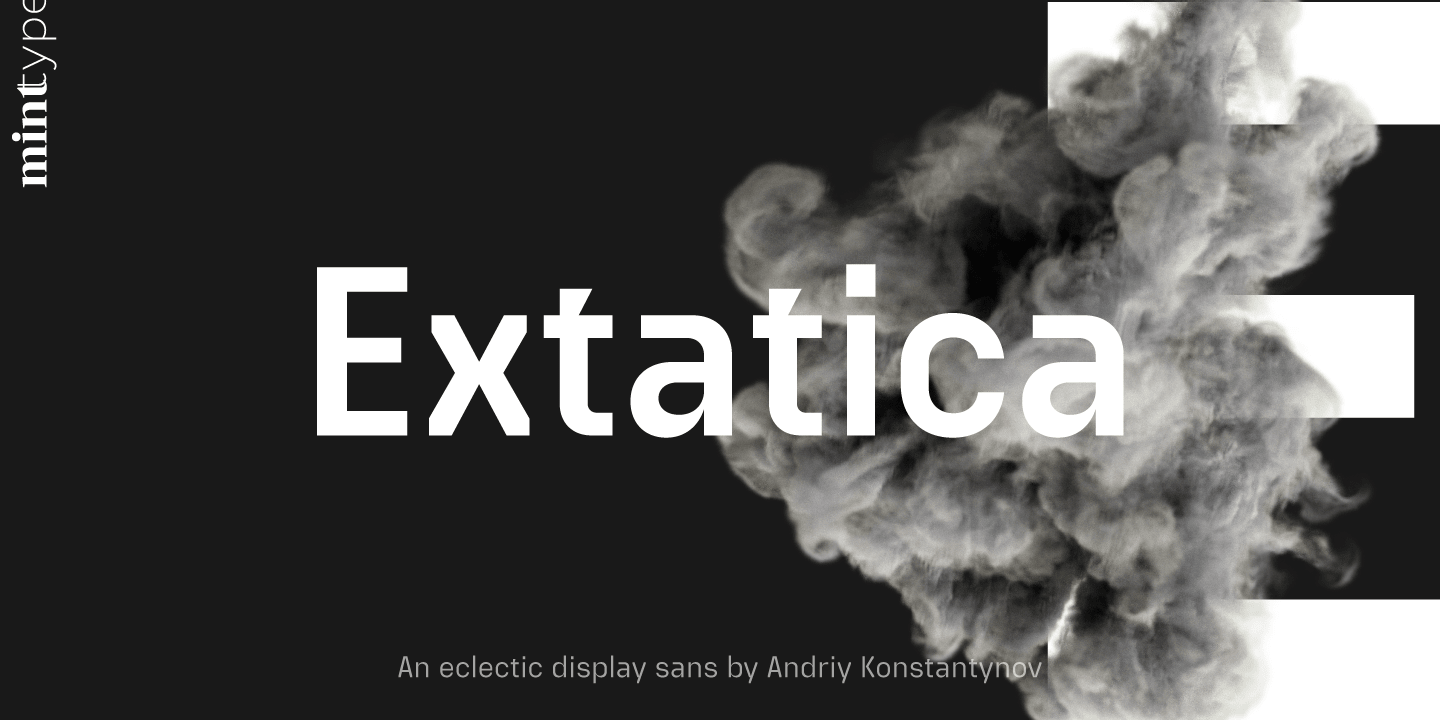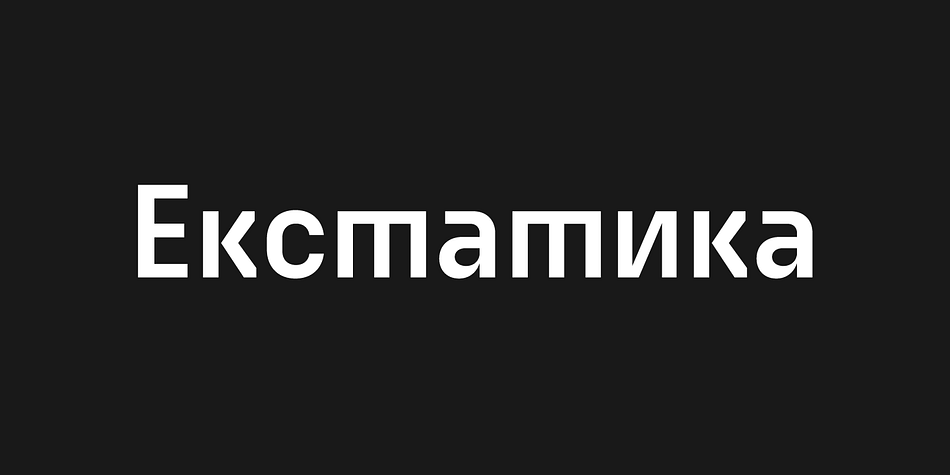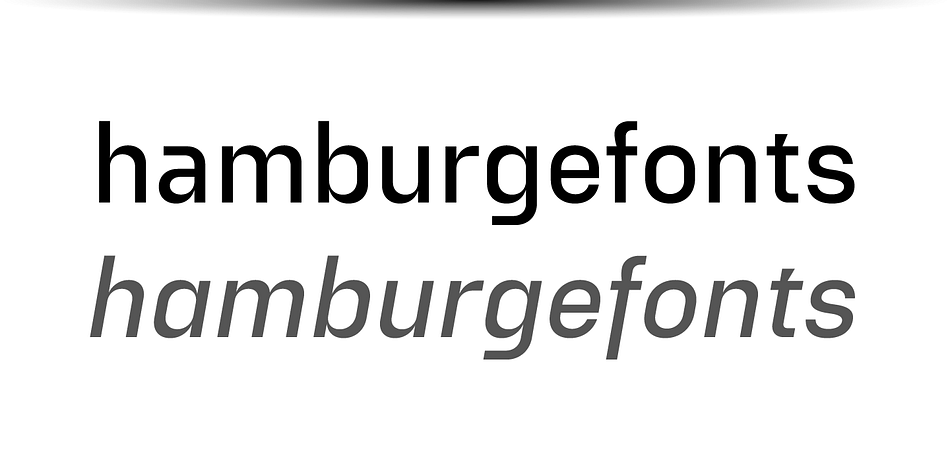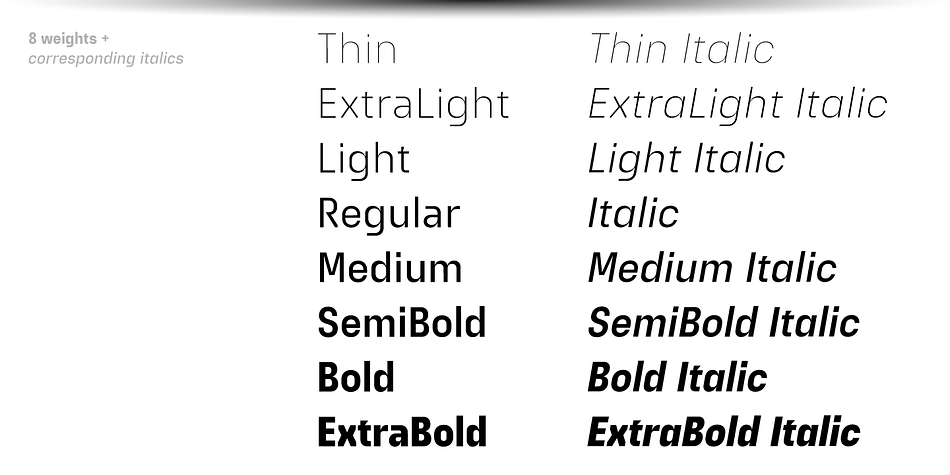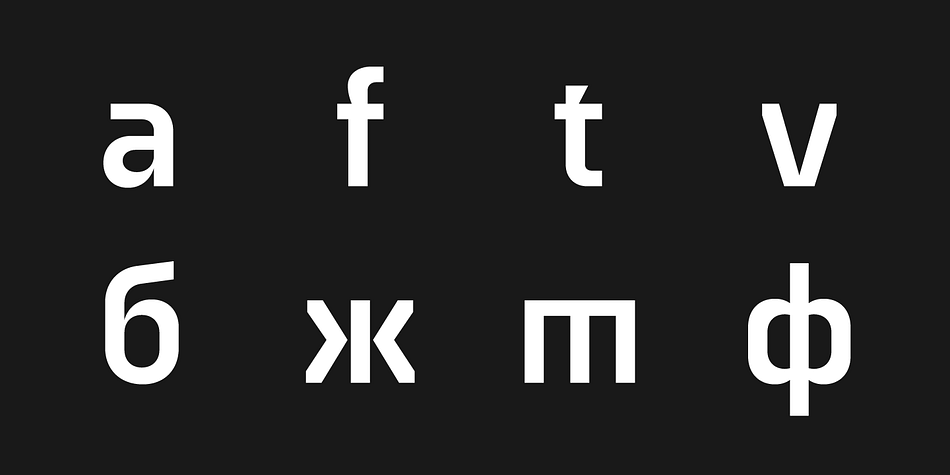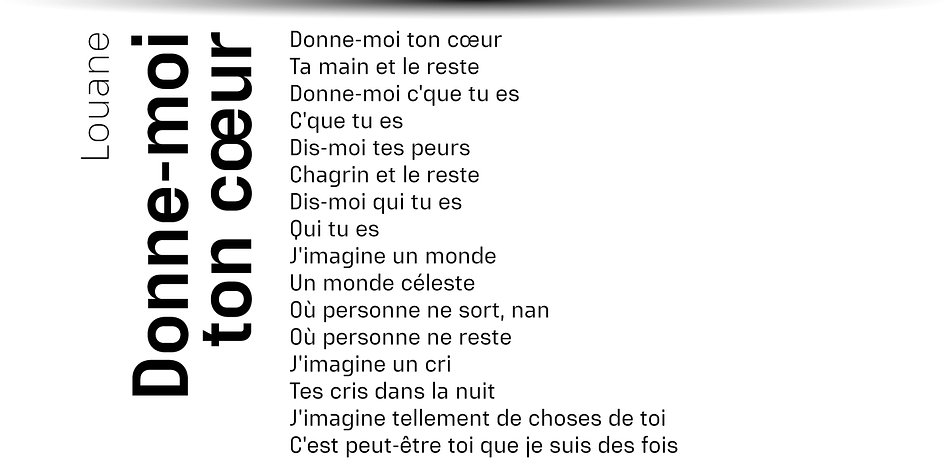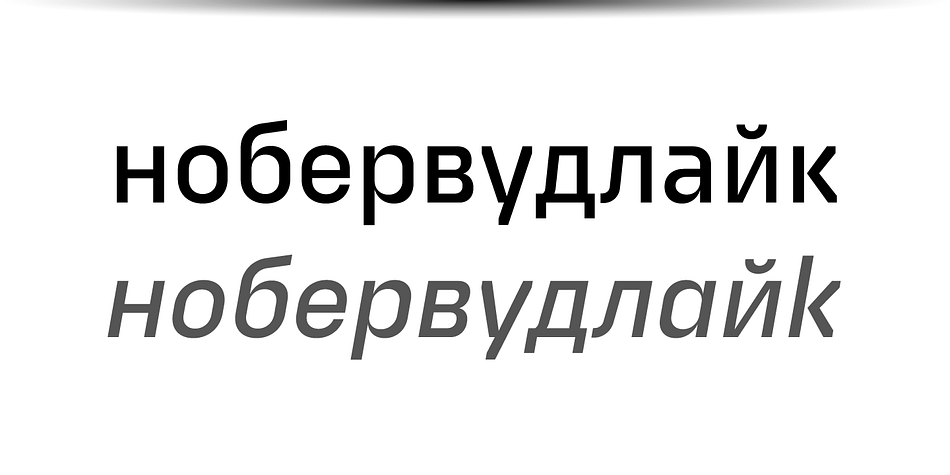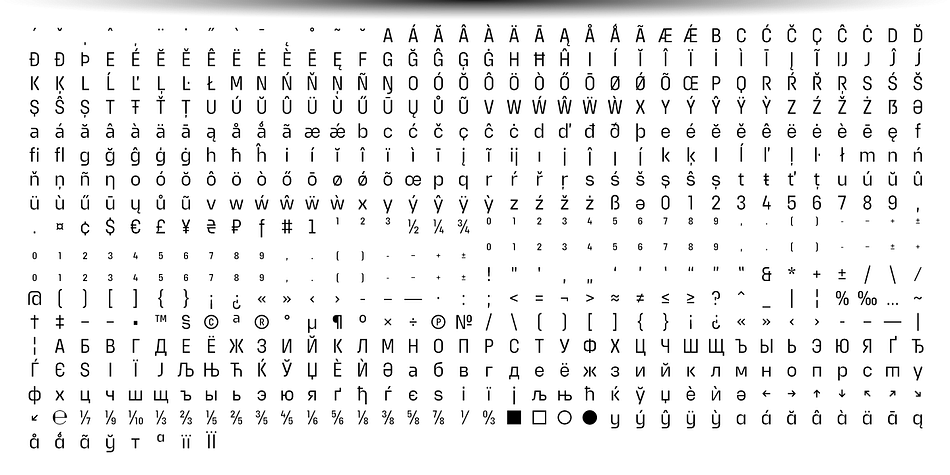
Designed by Andriy Konstantynov, Extatica is a display sans and sans serif font family. This typeface has sixteen styles and was published by Mint Type.
Extatica is an eclectic geometric display sans-serif typeface with narrow capitals. It comes in 8 weights with corresponding italics, enriched with several stylistic alternates and OpenType features. The glyph set includes all European Latin-based languages, as well as major languages that use Cyrillic script.
Despite being created as a display font family, Extatica also works well in small text sizes, which makes it perfect for stylized captions and subhead paragraphs.